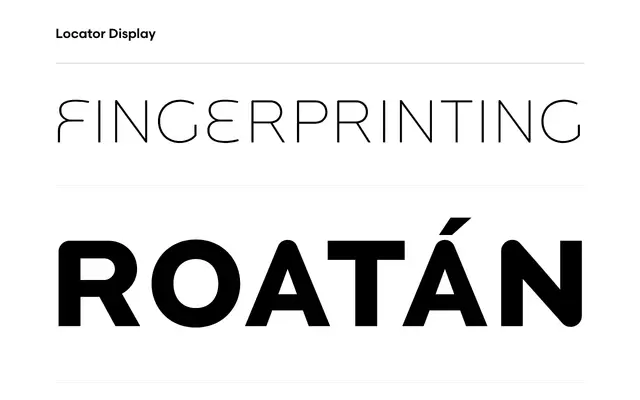
Locator Display
Process Type Foundry · Eric Olson · 2003
A six-weight display companion to Eric Olson's Locator, sharing its structural DNA but optimised for large sizes and headline settings.
Designed to cover stylistic ground that the standard Locator could not, Locator Display shares its sibling's stroke weight and cap-height to make pairing straightforward. Six weights make up the family, each tuned for large-size performance rather than text. Works either as a standalone contemporary display sans or as headline support for Locator.
Explicitly designed for large sizes and headline use, sharing structural DNA with Locator but covering stylistic ground unsuited to the text version; functions as a contemporary display sans companion family.